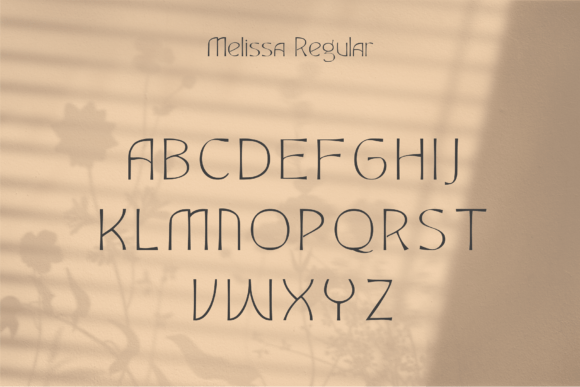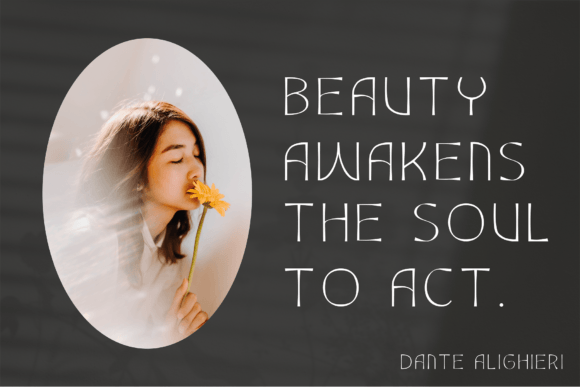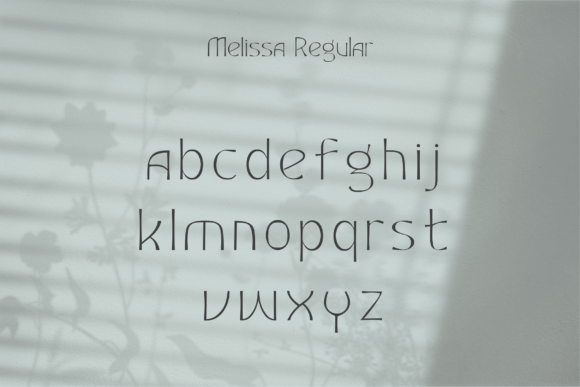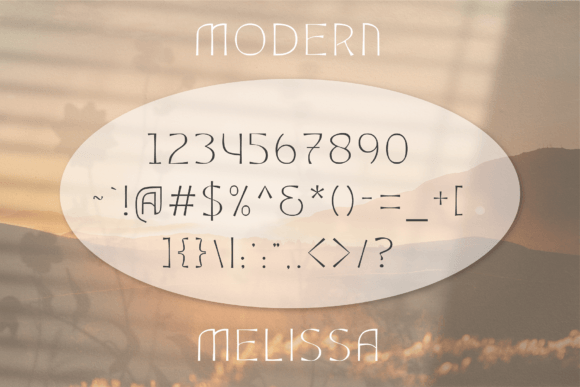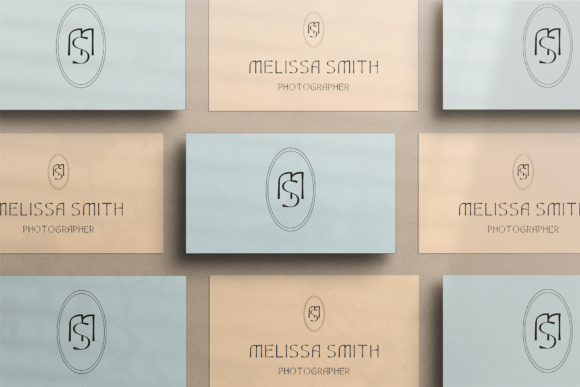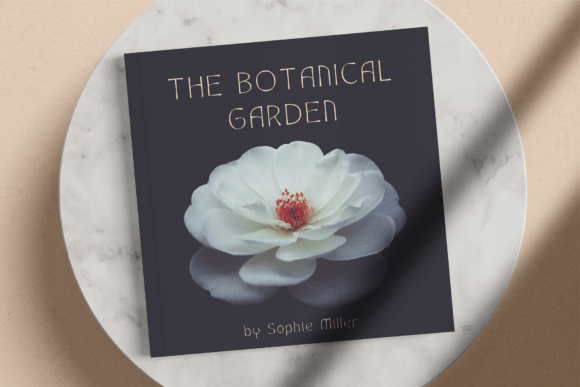
Creating Timeless Elegance: The Art of Design
Have you ever found yourself lost in a sea of design possibilities, searching for the perfect font to bring your vision to life? For many of us, the right font can be the key to unlocking a truly unforgettable design. And for those who crave sophistication and refinement, the Melissa font is a treasure trove of inspiration.
This elegant and feminine typeface is a masterclass in modern sophistication, with clean lines and graceful curves that evoke a sense of luxury and invitation. Whether you’re designing for beauty, cosmetics, fashion, or web design, the Melissa font is the perfect choice for creating designs that exude timeless elegance and refinement.
With the Melissa font, you can infuse your designs with a touch of handcrafted artistry, making them truly unforgettable and enchanting. It’s a valuable tool for designers who want to create beautiful, timeless designs that leave a lasting impression.
Fashion Elegant Beautiful Timeless Moder Font Key Features
- Font Family: Fashion Elegant Beautiful Timeless Moder Font
- Character Count: 400+ glyphs, including Latin, Cyrillic, and Greek alphabets
- Unique Characteristics: Elegant and sophisticated design, perfect for fashion, beauty, and luxury brands
Fashion Elegant Beautiful Timeless Moder Font Review
I recently had the chance to work with the “Fashion Elegant Beautiful Timeless Moder Font” and I must say it’s a mixed bag. Here are my honest thoughts.
- The font is indeed elegant and beautiful, perfect for high-end fashion brands or luxury goods.
- The timeless feel makes it suitable for classic or vintage-inspired designs.
- The font is highly legible, even at smaller sizes, which is a big plus.
- The font may not be suitable for modern or edgy designs, as it leans more towards traditional and classic styles.
- The font is quite ornate, which can make it difficult to read for people with visual impairments or those who prefer simpler typography.
- The font family is relatively small, which may limit its versatility and flexibility in different design scenarios.
Overall, I think the “Fashion Elegant Beautiful Timeless Moder Font” is a solid choice for specific design projects, but it may not be the best fit for every situation. It’s a beautiful font, but it’s also quite niche and may require some careful consideration before using it.
Getting the Most Out of Fashion Elegant Beautiful Timeless Moder Font
For optimal results, use Fashion Elegant Beautiful Timeless Moder Font in headings and titles to create a sophisticated and elegant look.
Combine the font with a simple and clean design to emphasize the beauty of the font.
Fashion Elegant Beautiful Timeless Moder Font is ideal for:
- High-end fashion magazines and catalogs.
- Luxury product branding and advertising.
Playfair Display is a high-end serif font that exudes luxury and sophistication. It’s ideal for use in high-end branding, advertising, and editorial content where a touch of elegance is required. Compared to Fashion Elegant Beautiful Timeless Moder Font, Playfair Display has a more refined and classic feel, making it suitable for applications where a more traditional aesthetic is desired.
Great Vibes is a modern script font that conveys a sense of playfulness and creativity. It’s perfect for use in branding, packaging, and marketing materials where a fun and approachable tone is needed. Unlike Fashion Elegant Beautiful Timeless Moder Font, Great Vibes has a more casual and relaxed feel, making it suitable for applications where a friendly and approachable tone is desired.
Pacifico is a beautiful script font that evokes a sense of relaxation and serenity. It’s ideal for use in branding, advertising, and editorial content where a calming and soothing tone is required. Compared to Fashion Elegant Beautiful Timeless Moder Font, Pacifico has a more laid-back and organic feel, making it suitable for applications where a peaceful and natural aesthetic is desired.